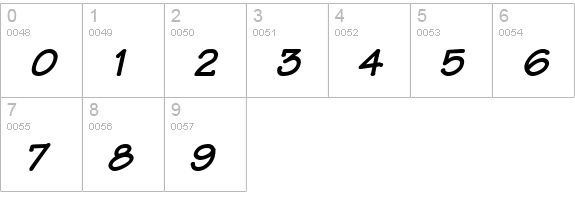
Techno Heavy BoldItalic is a heavy, high-impact variant in the Techno typeface family \xE2\x80\x94 well suited to high-impact headlines, posters, and display advertising.
Techno Heavy BoldItalic is a captivating and striking font that exudes a sense of modernity and confidence. This font beautifully combines boldness and elegance, making it perfect for designs that demand attention and make a lasting impression. With its unique blend of sharp angles and sleek curves, Techno Heavy BoldItalic stands out from the crowd, adding a touch of sophistication and edginess to any project. Its bold and italicized appearance adds an element of intensity and drama, making it ideal for headlines, logos, and other eye-catching design elements. Not only does Techno Heavy BoldItalic possess an exceptional aesthetic appeal, but it also offers tremendous versatility. It effortlessly adapts to various design styles and themes, making it suitable for a wide range of projects, from futuristic and tech-related designs to urban and contemporary artwork. What makes Techno Heavy BoldItalic even more appealing is that it is freely available to download at FontsMarket.com. This means that designers, artists, and creatives of all kinds can enjoy the benefits of this remarkable font without any cost attached. Whether you're a professional designer or an enthusiast experimenting with typography, Techno Heavy BoldItalic is the perfect addition to your font collection. With its captivating presence, striking appearance, and the convenience of being freely available, Techno Heavy BoldItalic is a font that truly stands out from the rest. Download it today at FontsMarket.com and let your creativity soar to new heights.